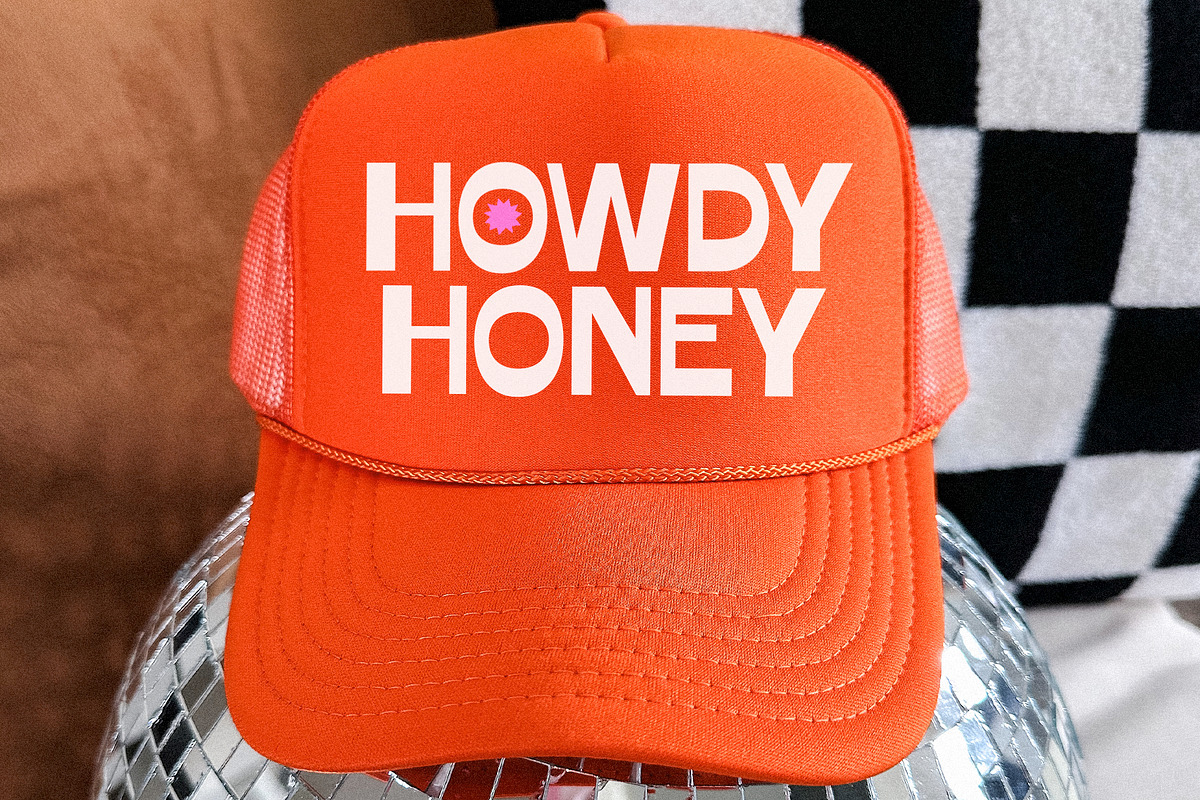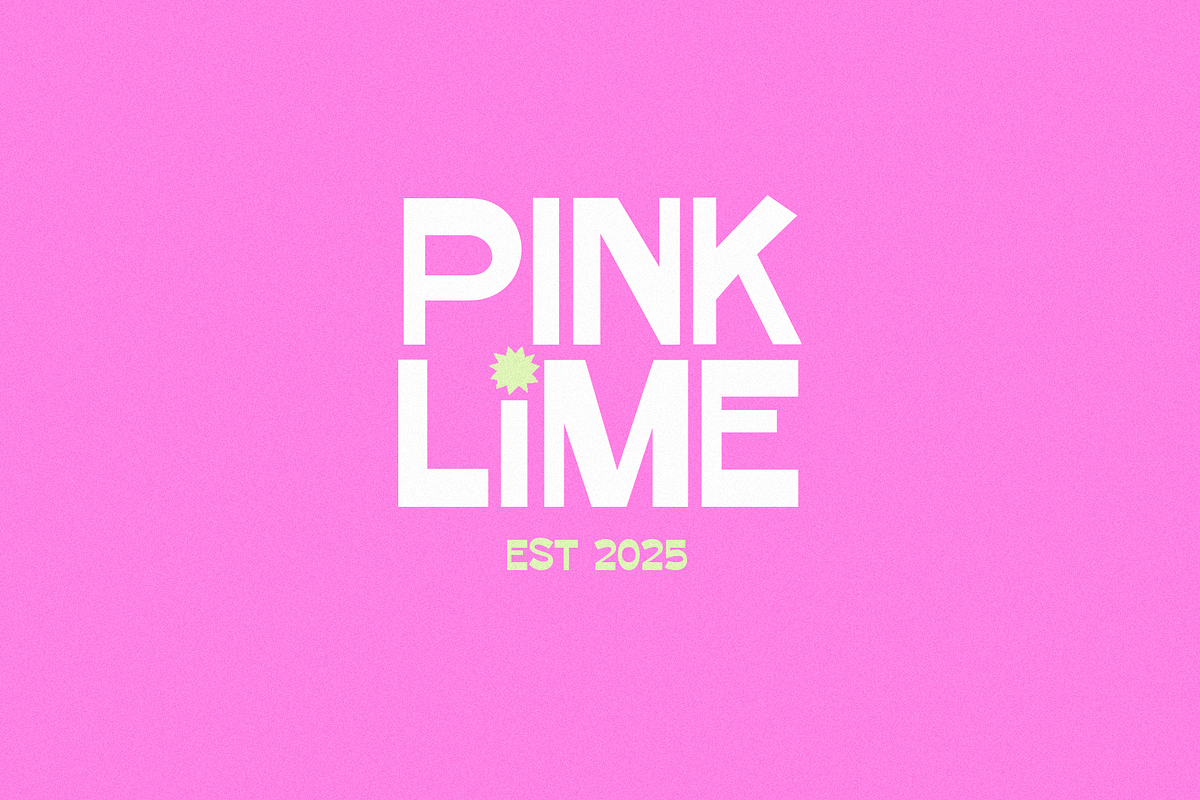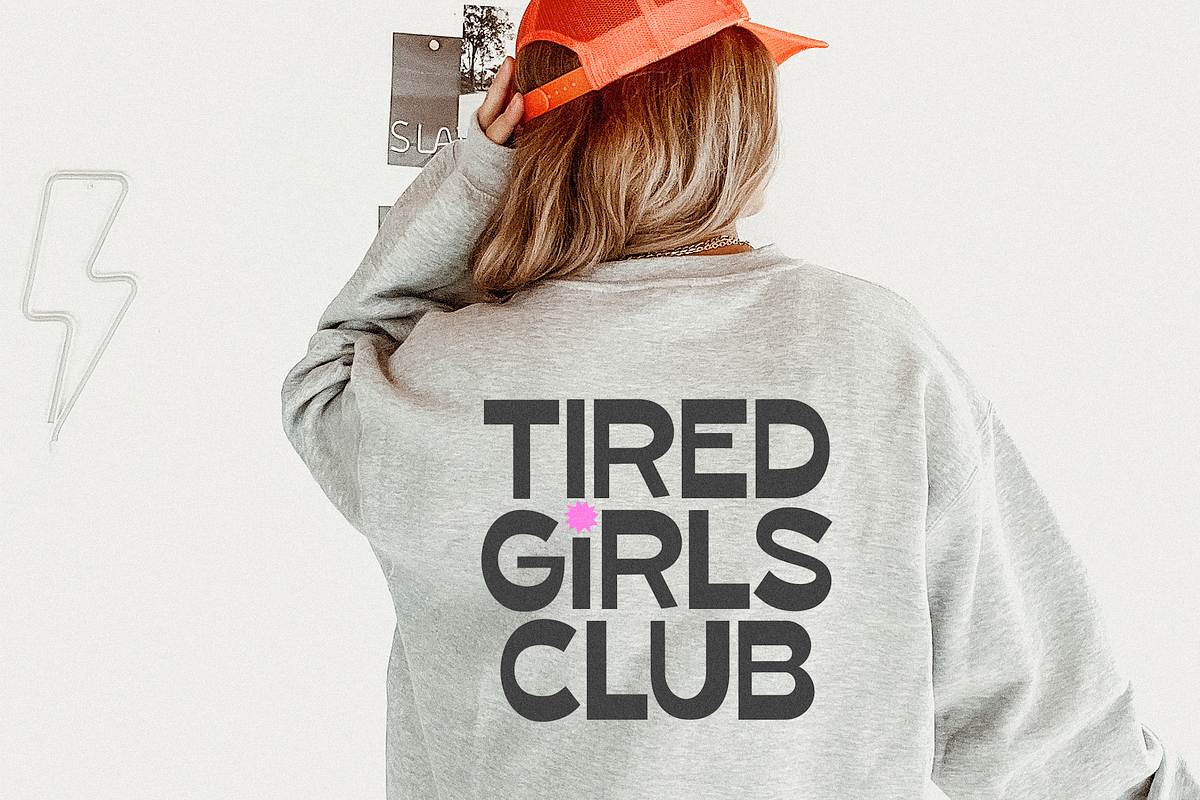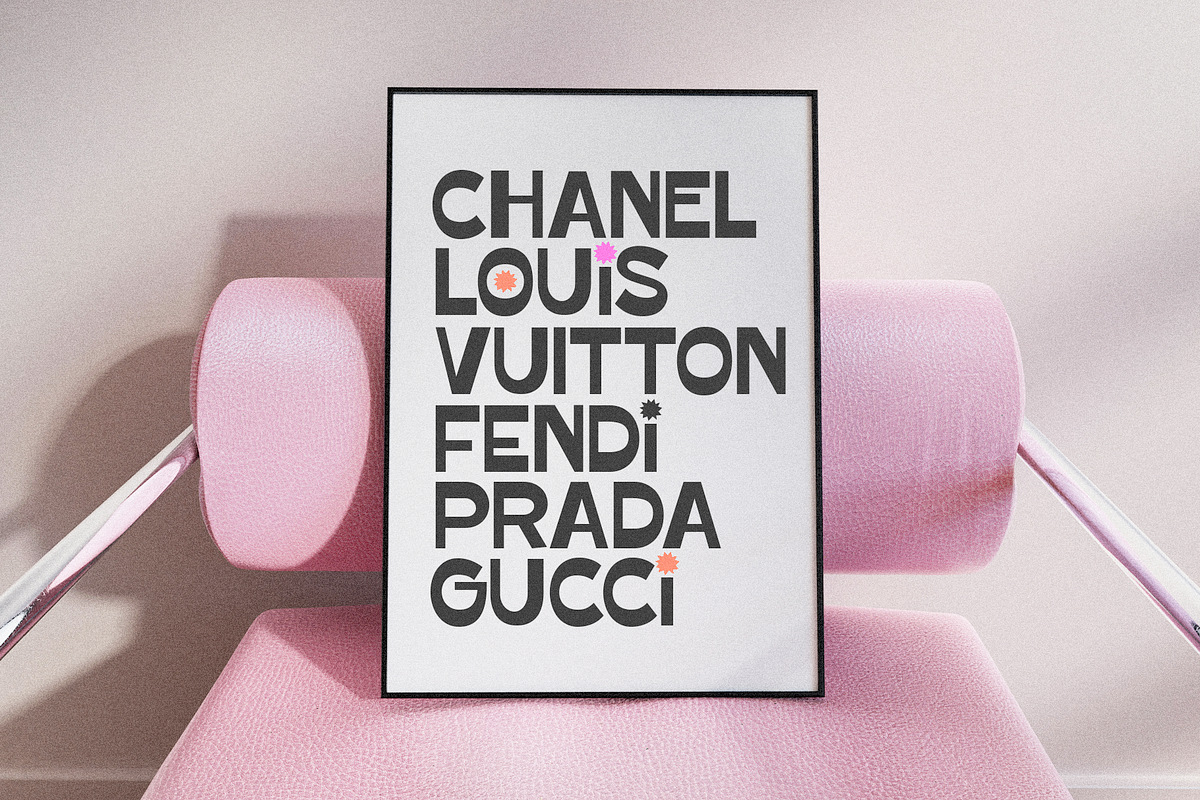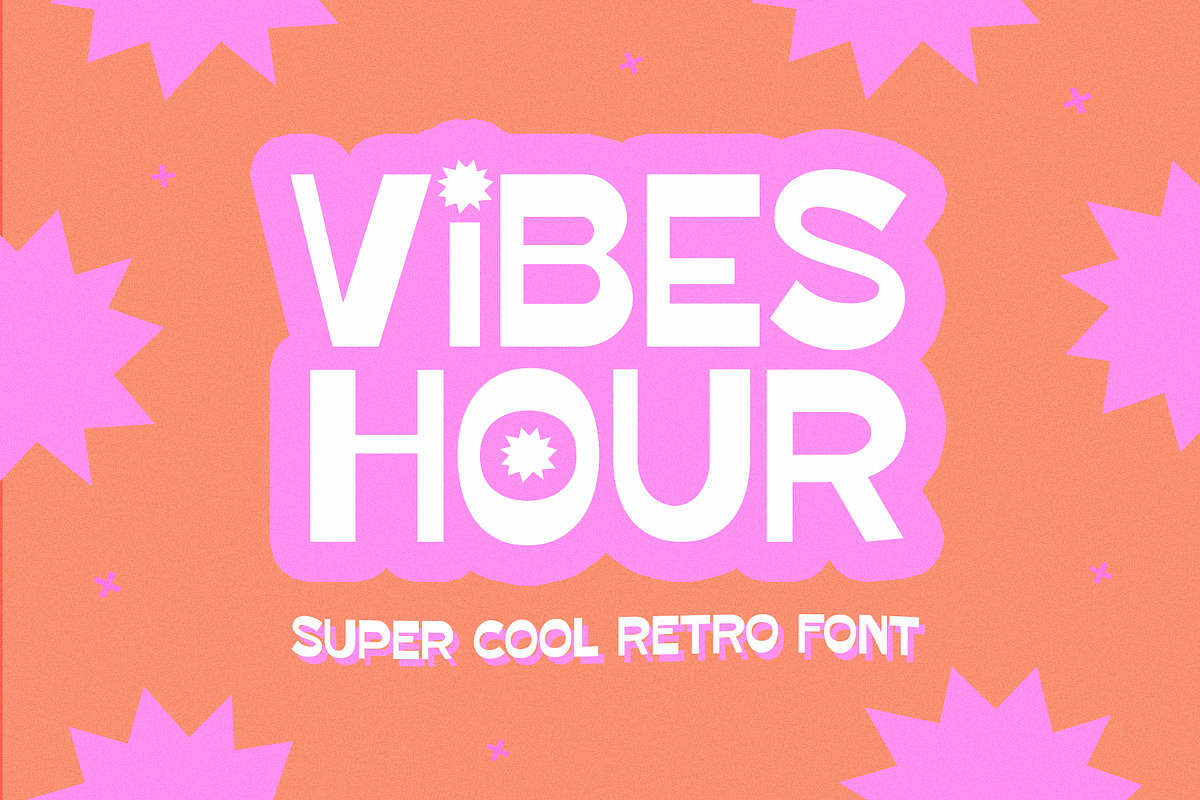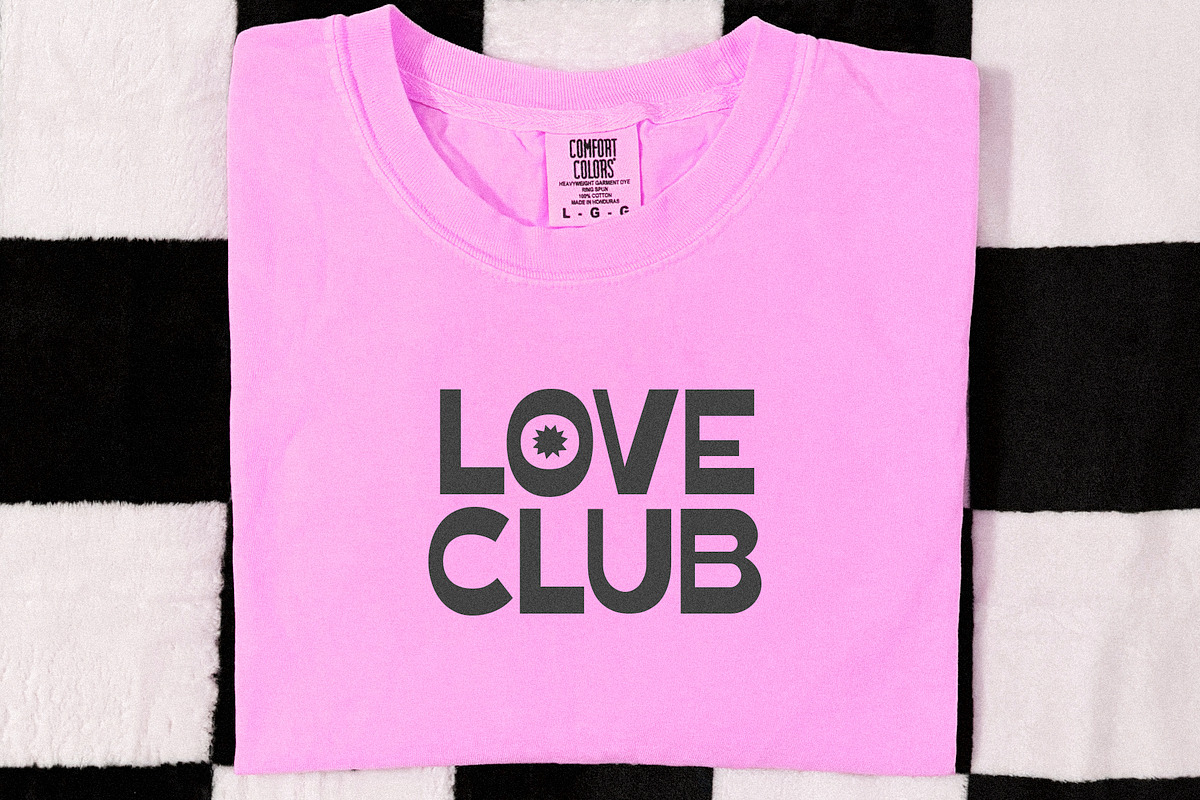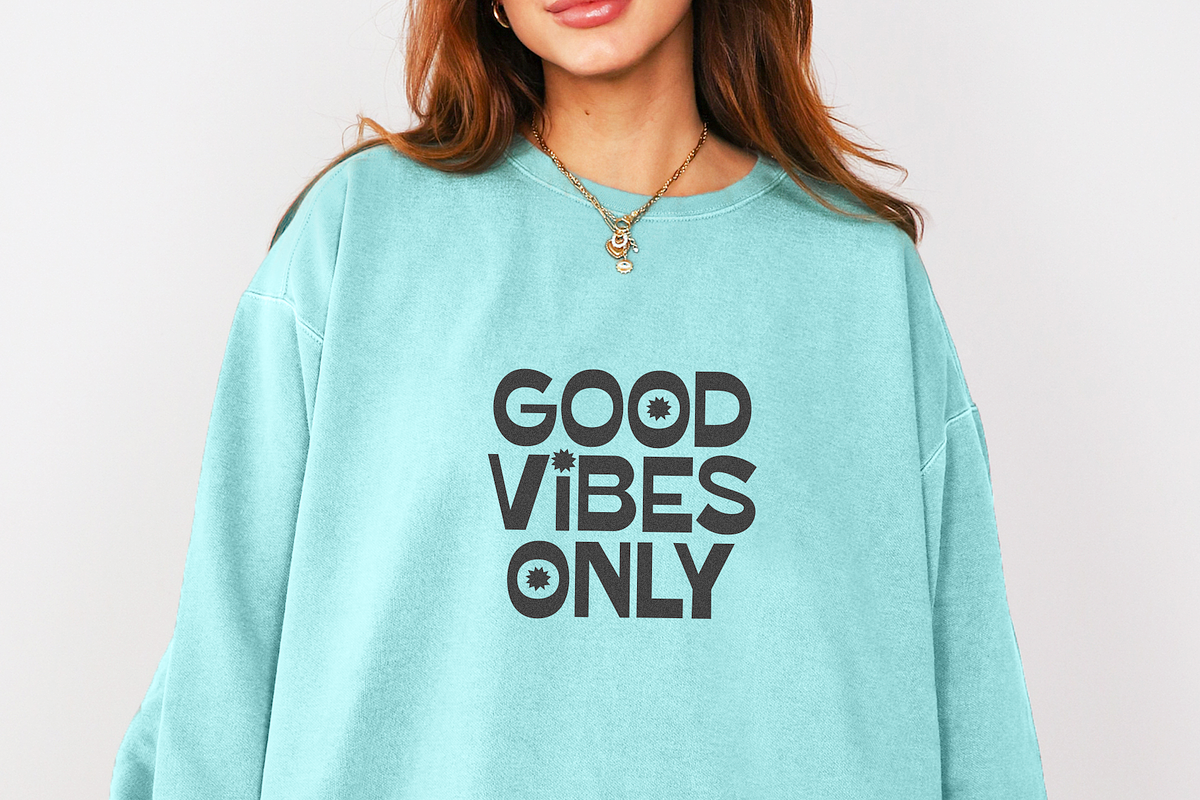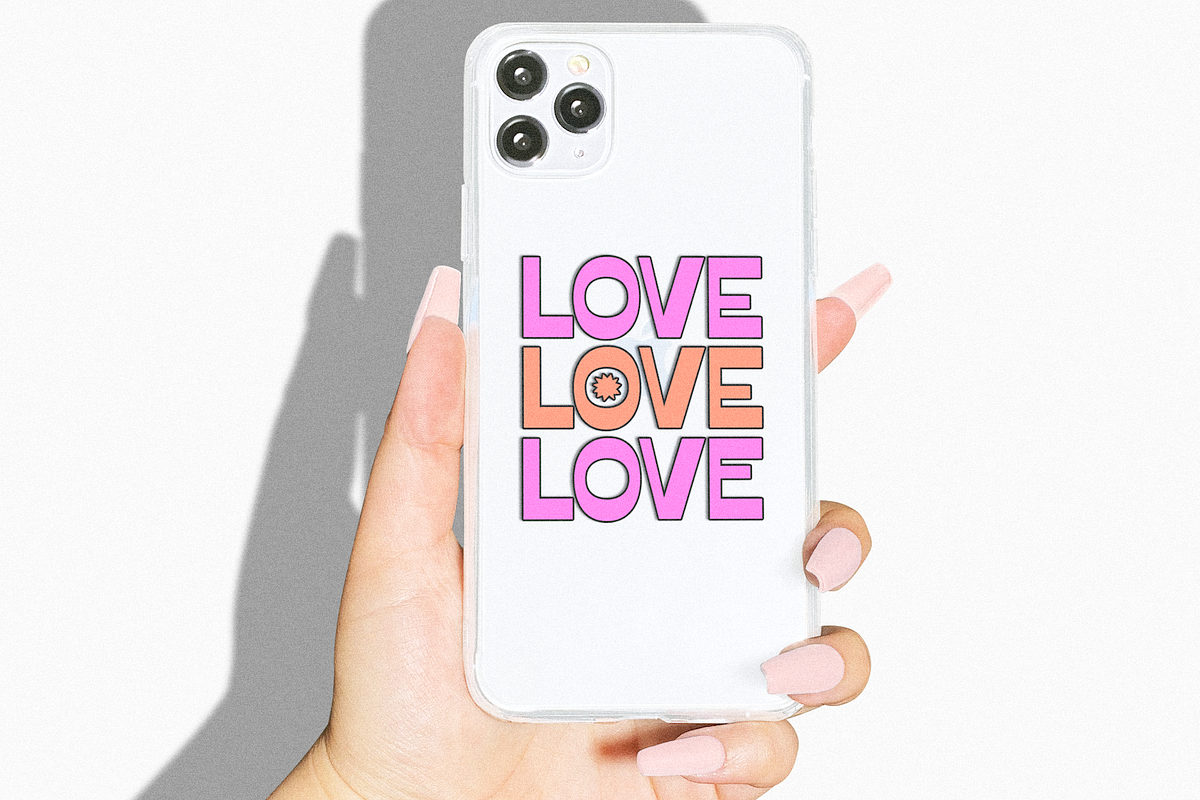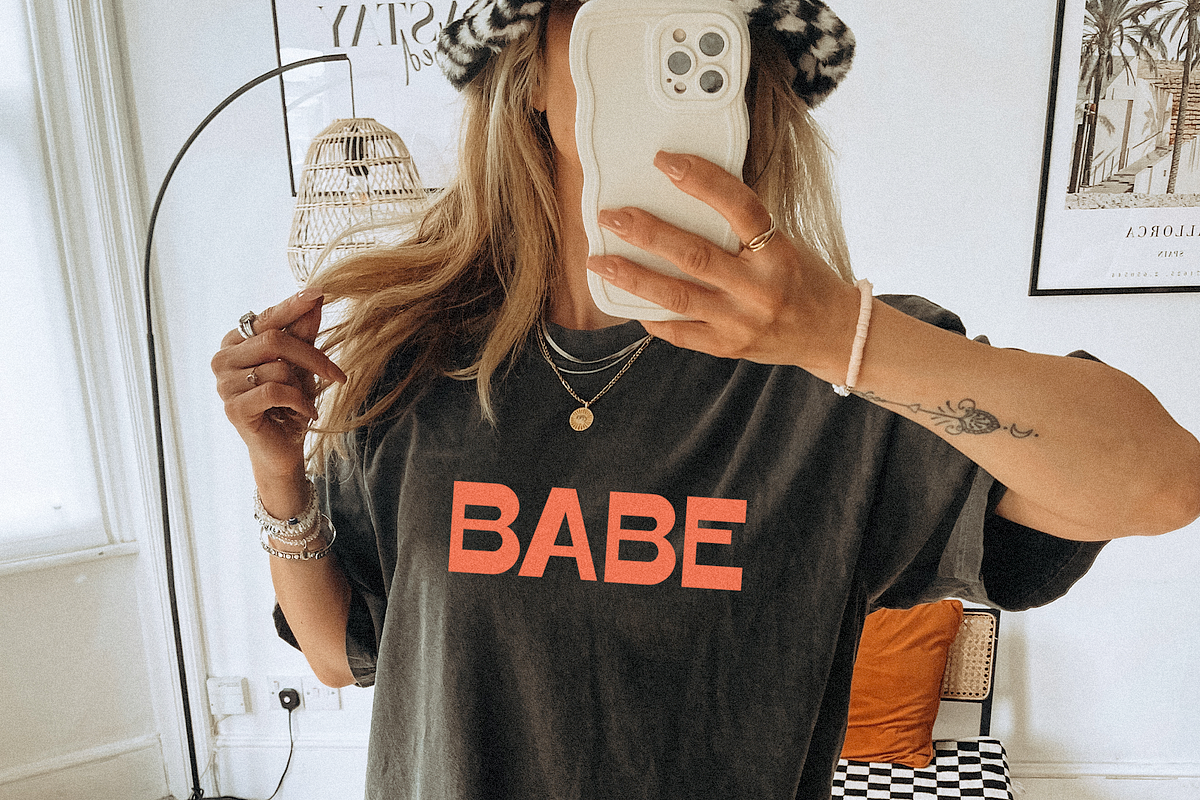
Vibes Hour | Trendy Retro Font
Vibes Hour is a super cool retro font.
This font is perfect for all of your trendy designs, logos, shirts, branding, craft and cricut, teachers, goodnotes, procreate, hats and more!